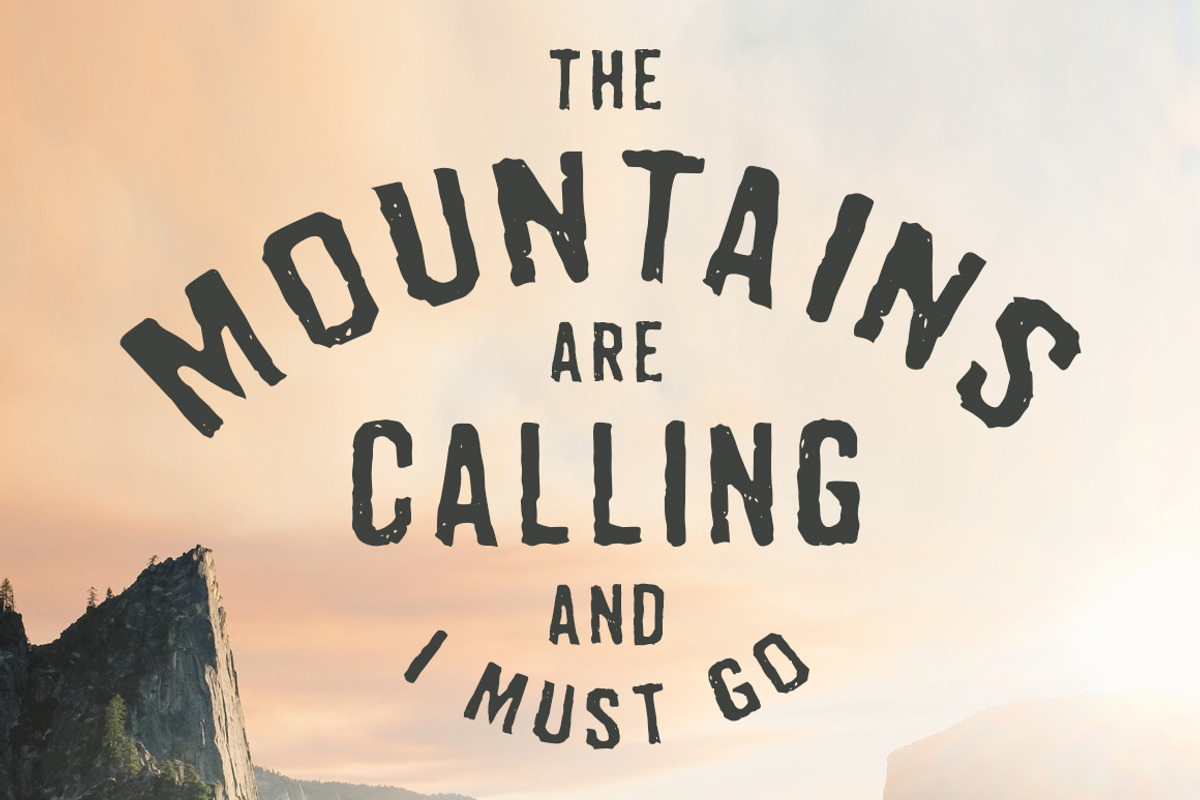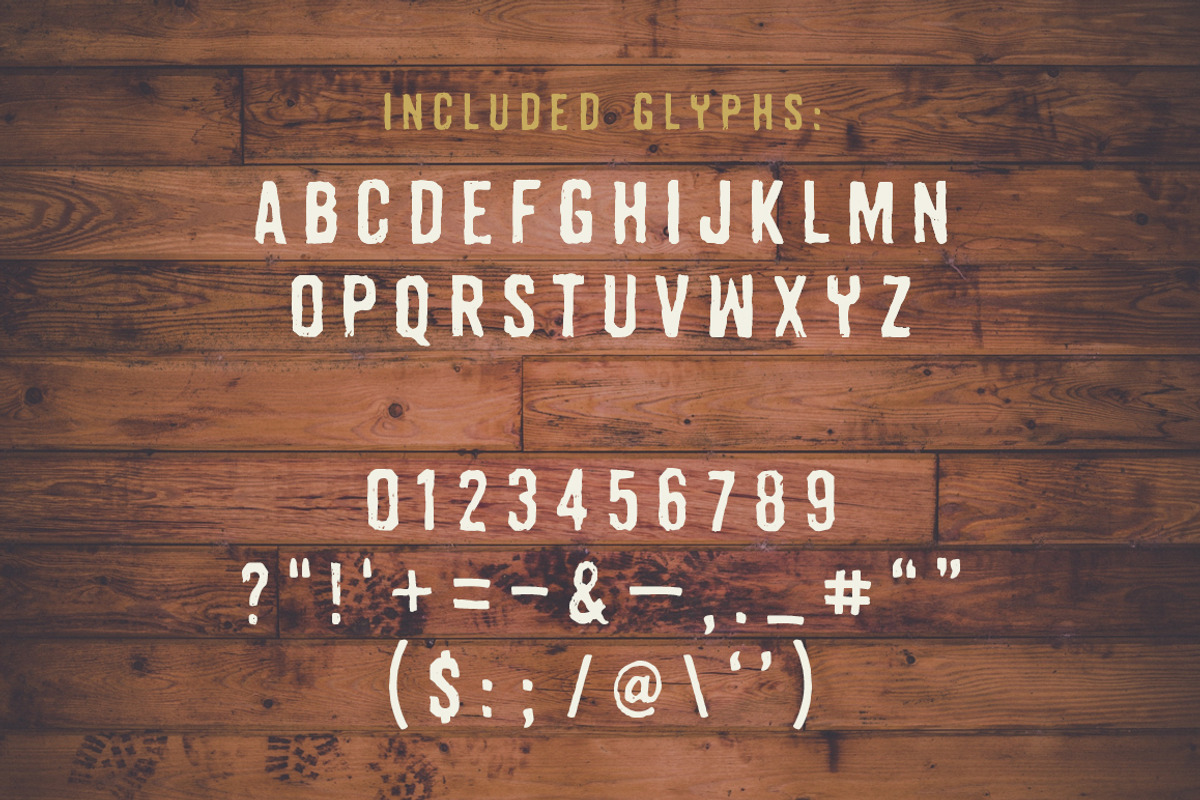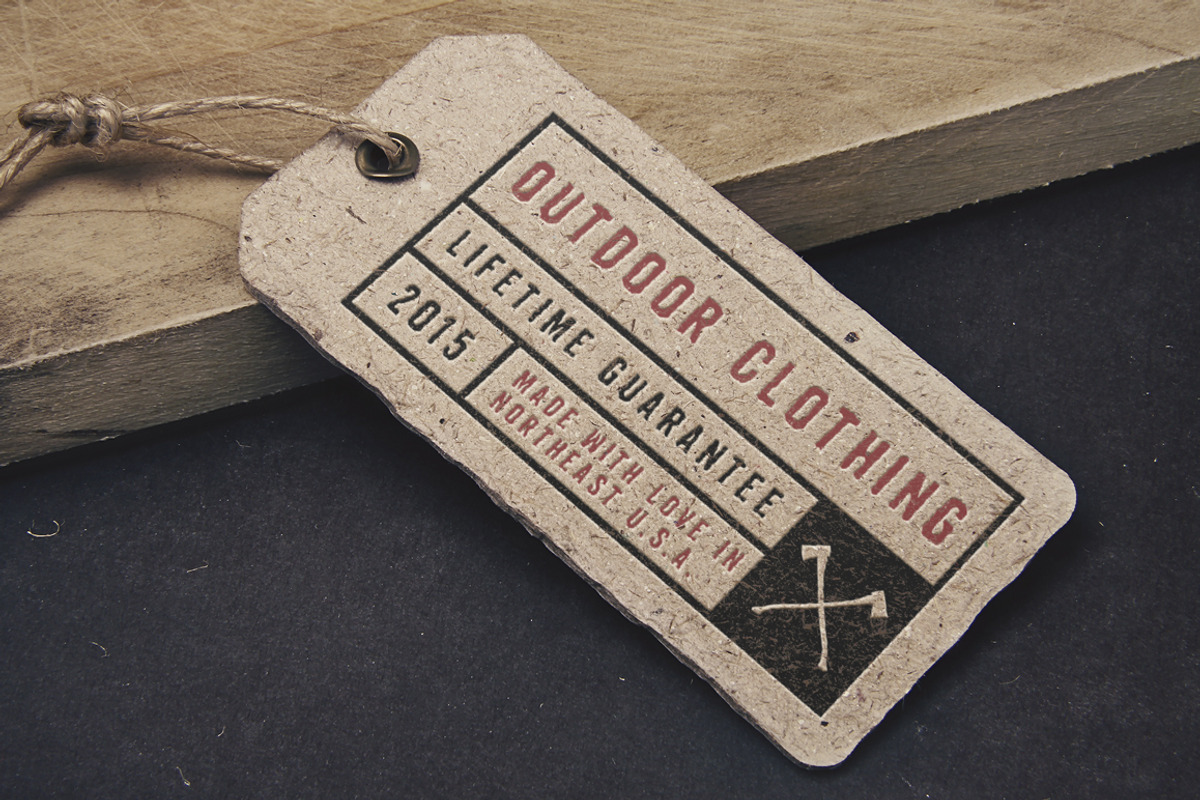
Northern Passage - A Handmade Font
Northern Passage - A Handmade Font by Build Interactive is a font selected for branding, posters, packaging, typography.
Why Northern Passage - A Handmade Font is worth a look
Northern Passage - A Handmade Font by Build Interactive fits naturally into Branding, posters, packaging, typography.